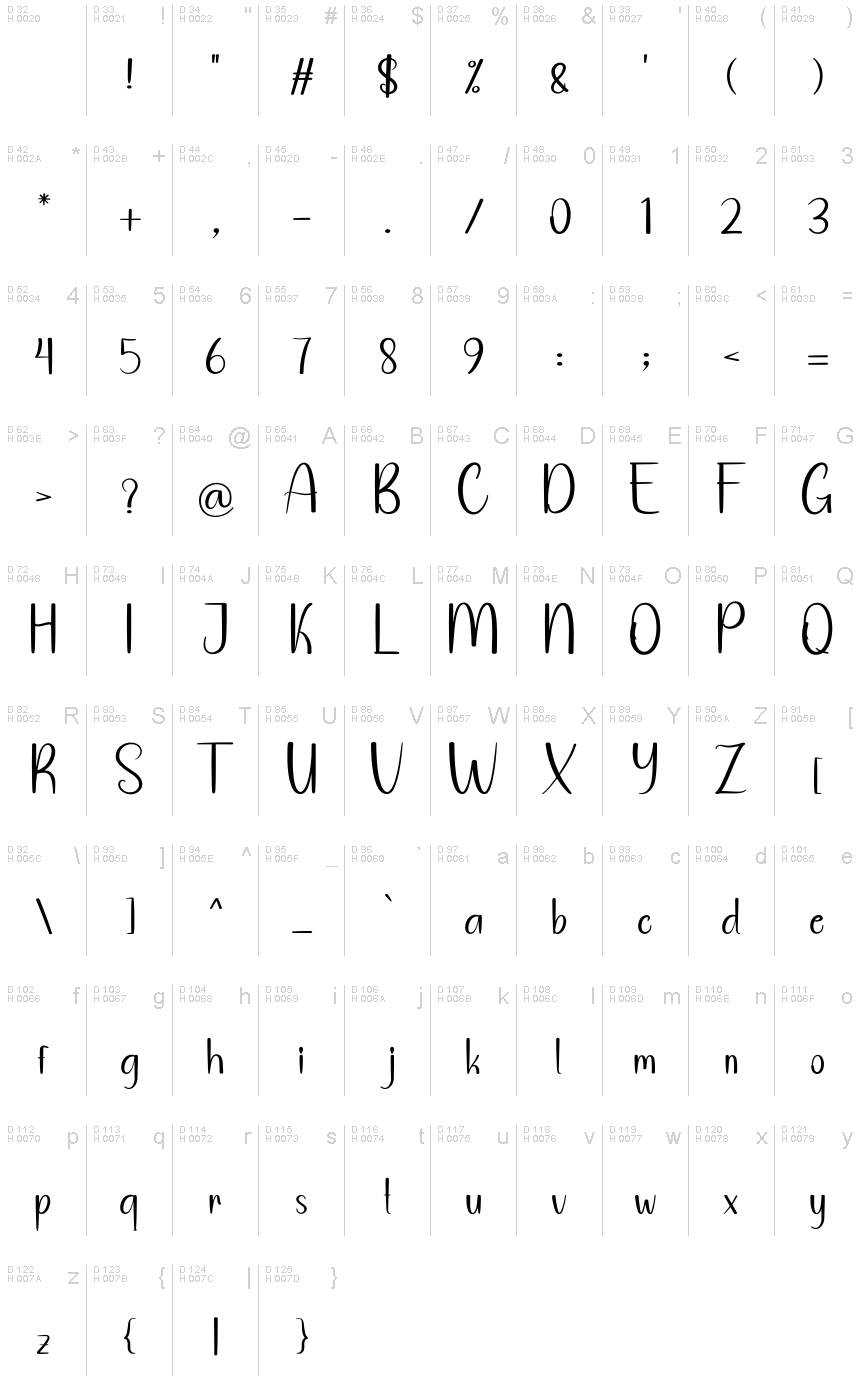
Stock Design
Stock Design is a handwritten font crafted by Andi Moz, exhibiting a captivating blend of elegance and playfulness. Its flowing, organic strokes evoke a sense of artisanal craftsmanship, while the subtle variations in letter shapes lend a distinct character to the typeface.
The font's versatility shines through, making it a compelling choice for a wide range of design applications, from sleek branding and packaging to whimsical stationery and editorial layouts.
Its inherent charm and distinctive personality effortlessly elevate any project, adding a touch of refined, handcrafted sophistication.